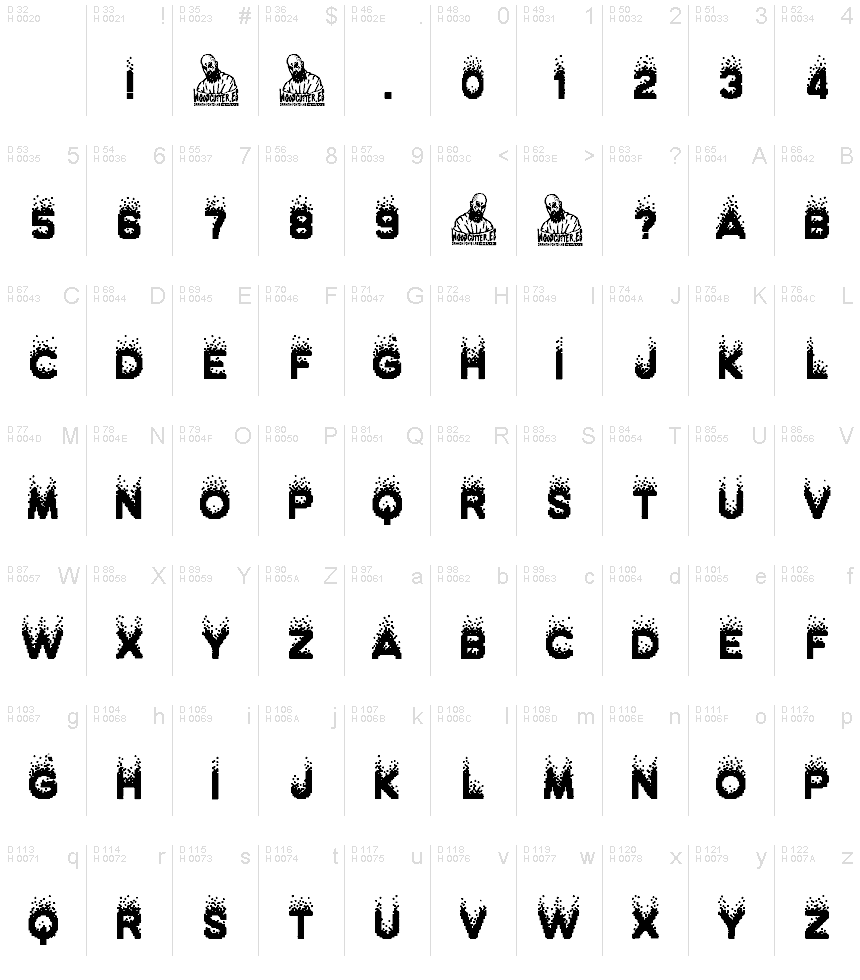
Efervescencia Programada
Efervescencia Programada font by Woodcutter is a display font with a distinctive and decorative style. Its distressed and grunge appearance infuses designs with an energy that is both edgy and avant-garde. The unique character of this expressive typeface stands out effortlessly, offering immediate impact in any project.